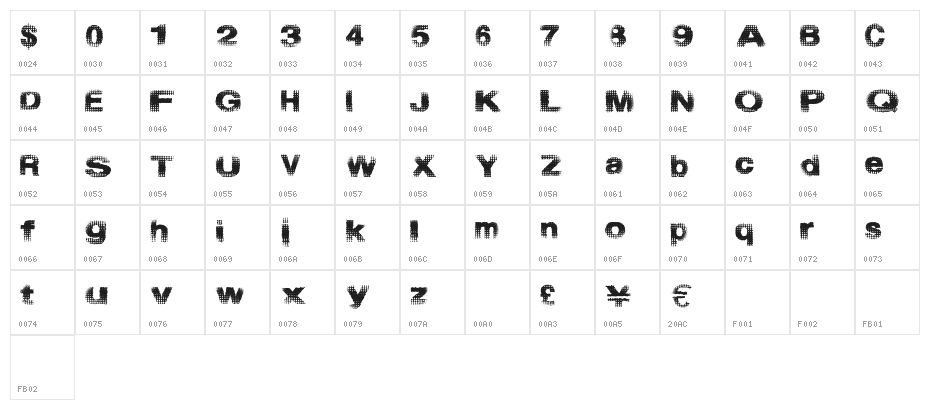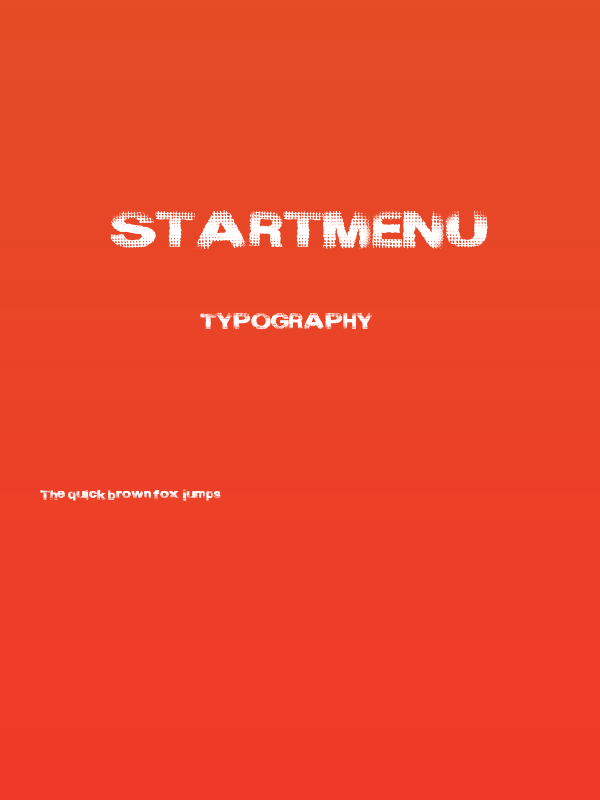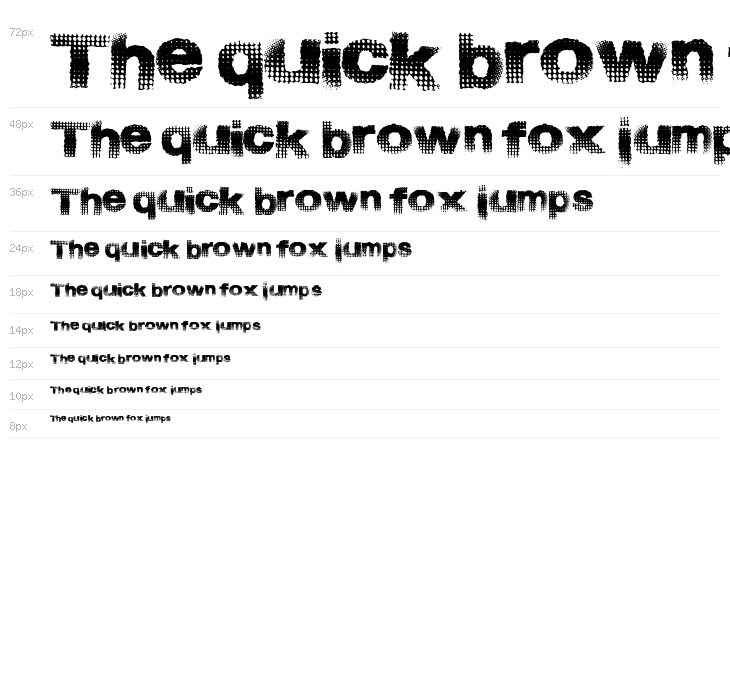
StartMenu Font
✎ Distorted Eroded
| Vorgeschlagene Projekte | Ideal for posters, album covers, and digital art projects that require a bold and eye-catching typeface. |